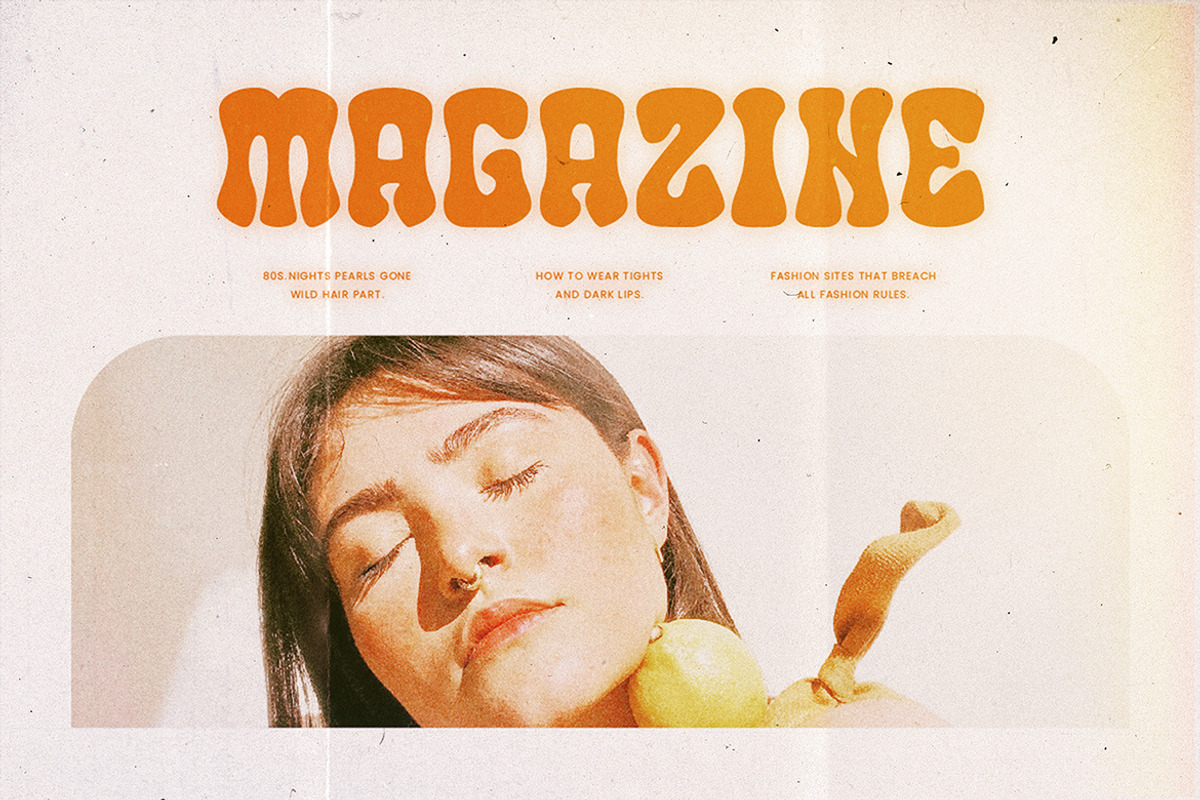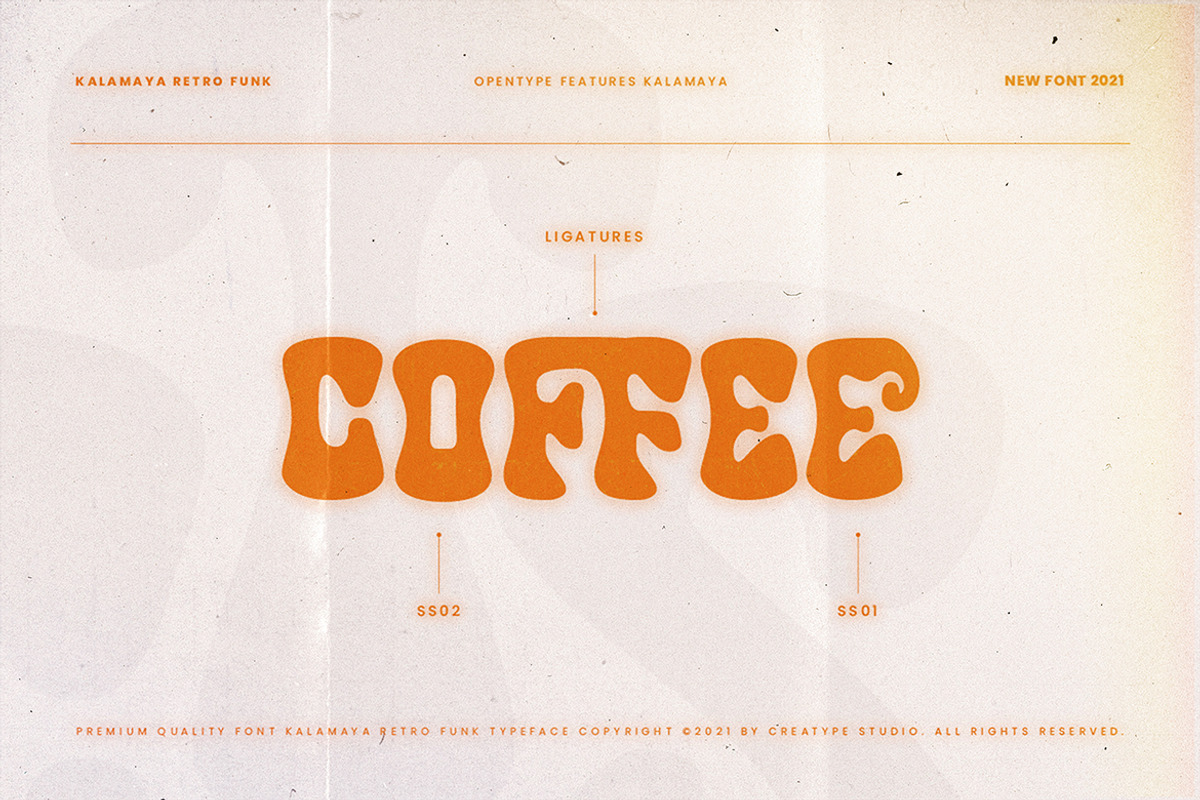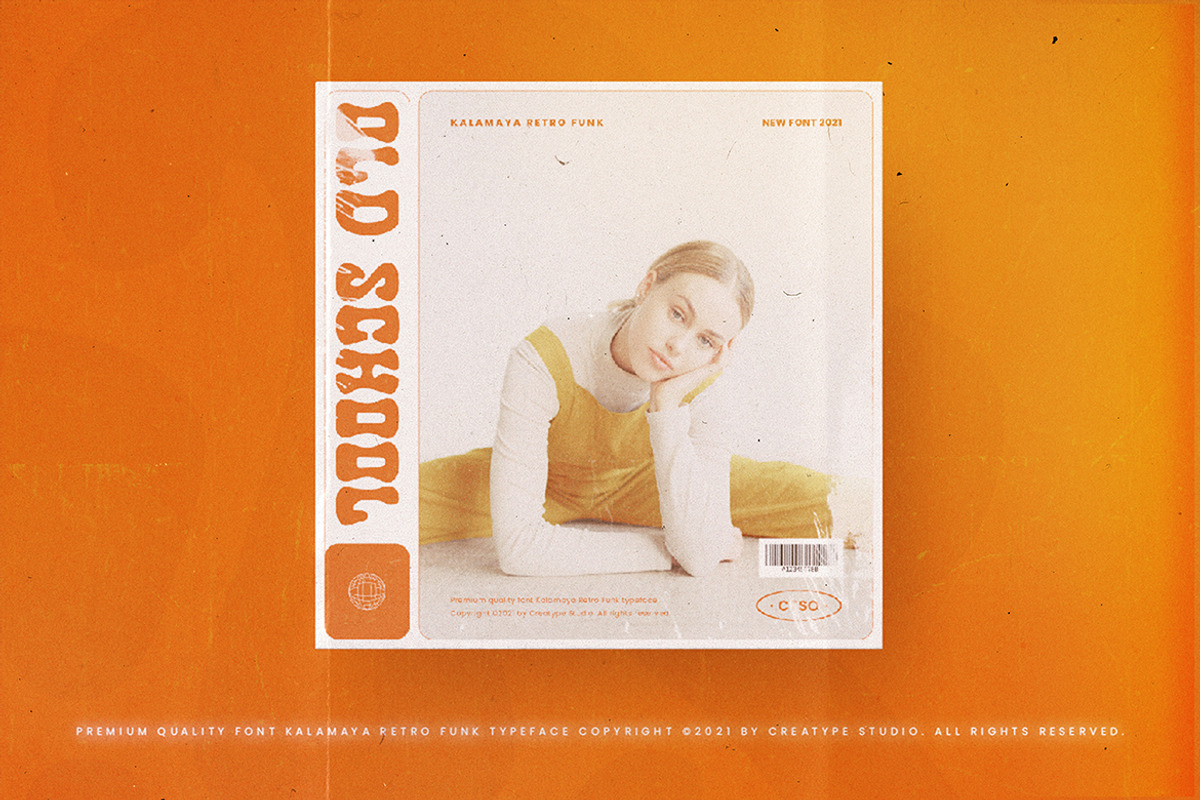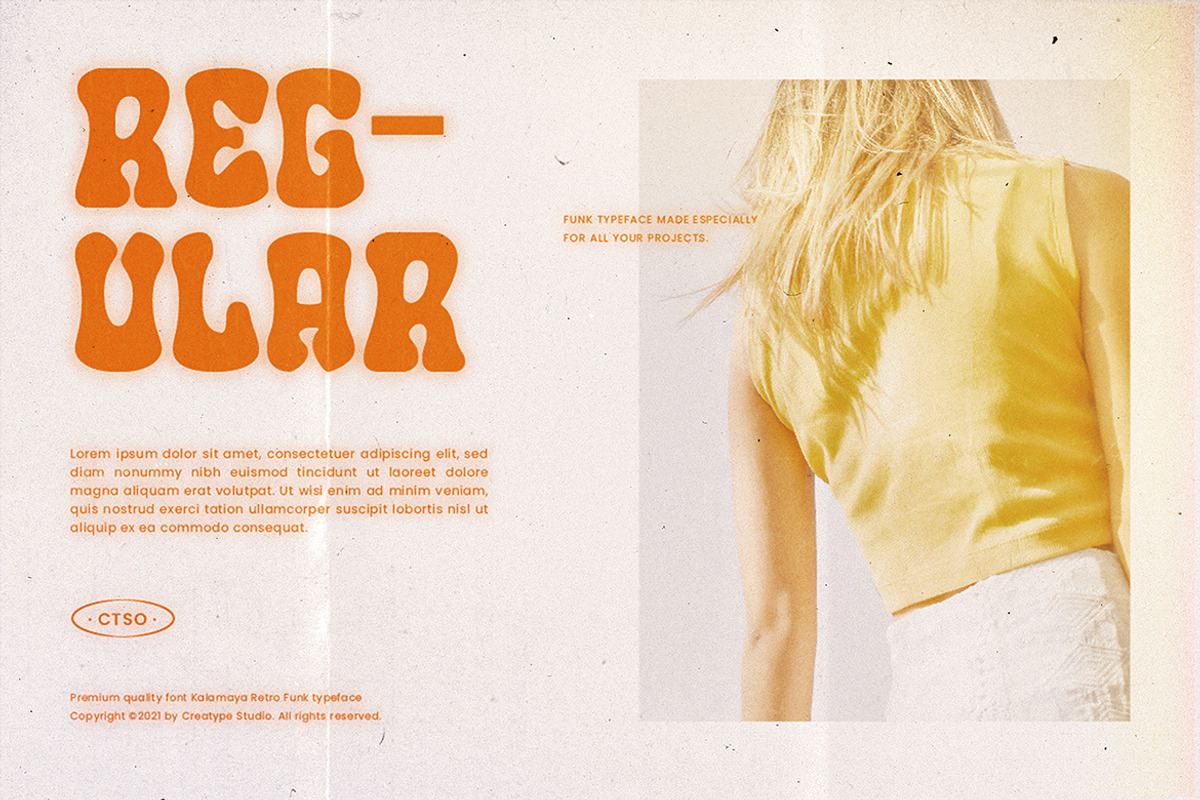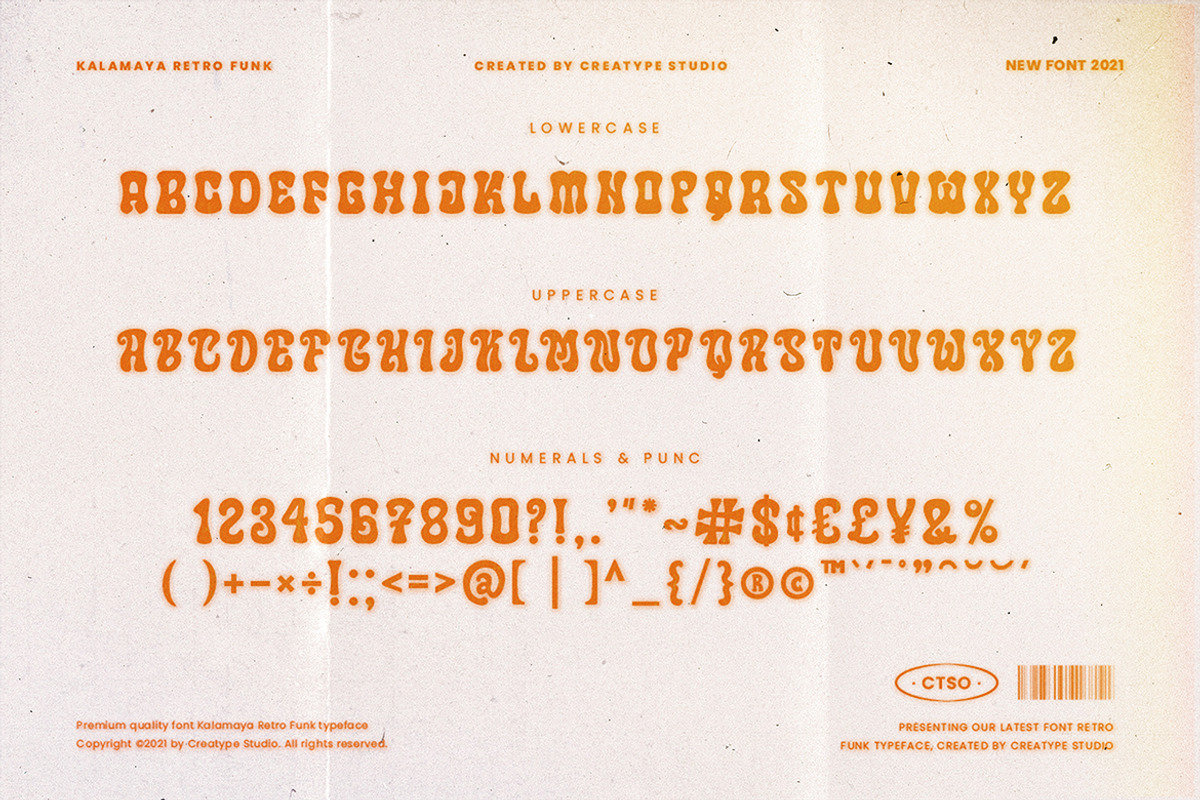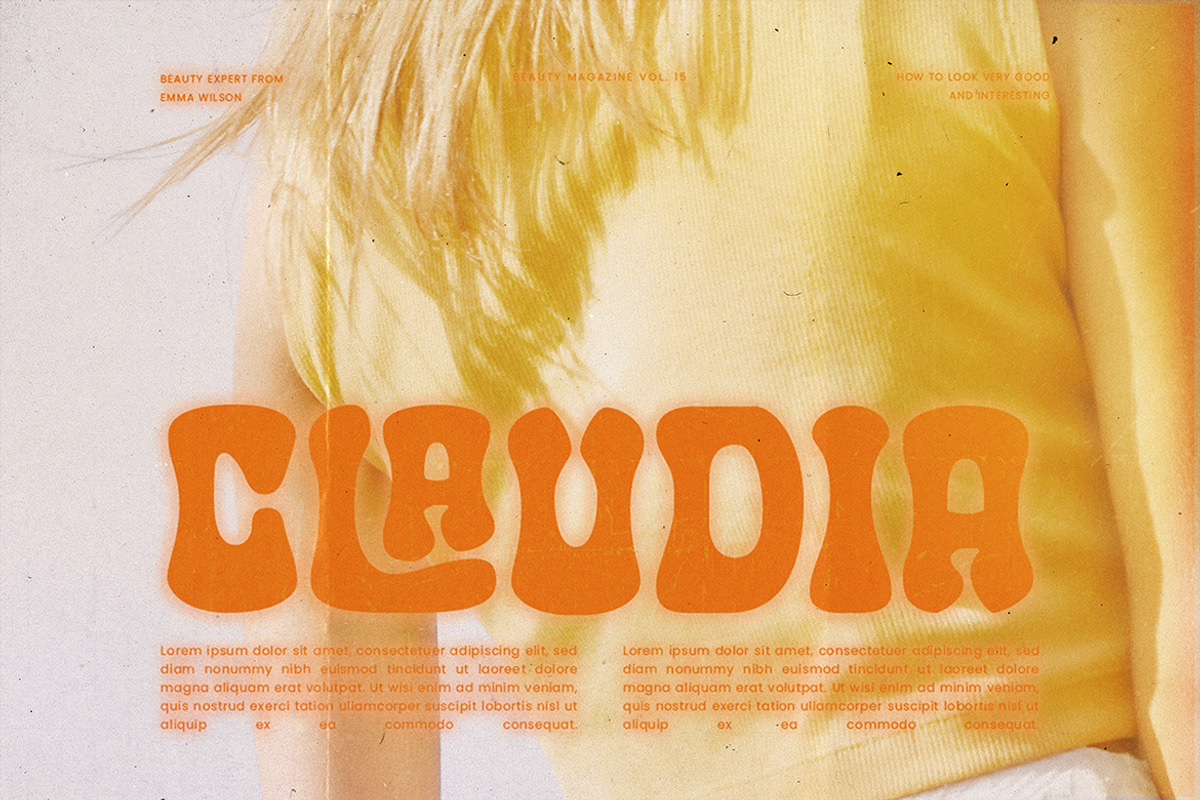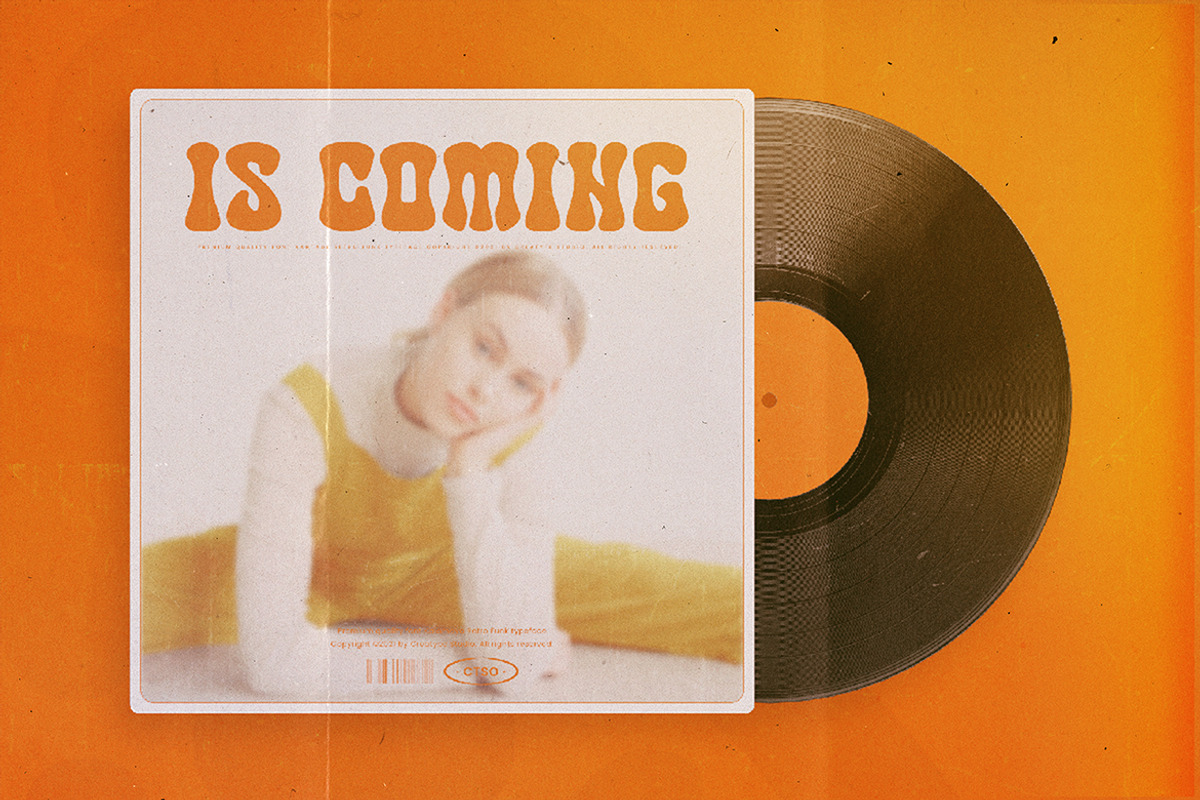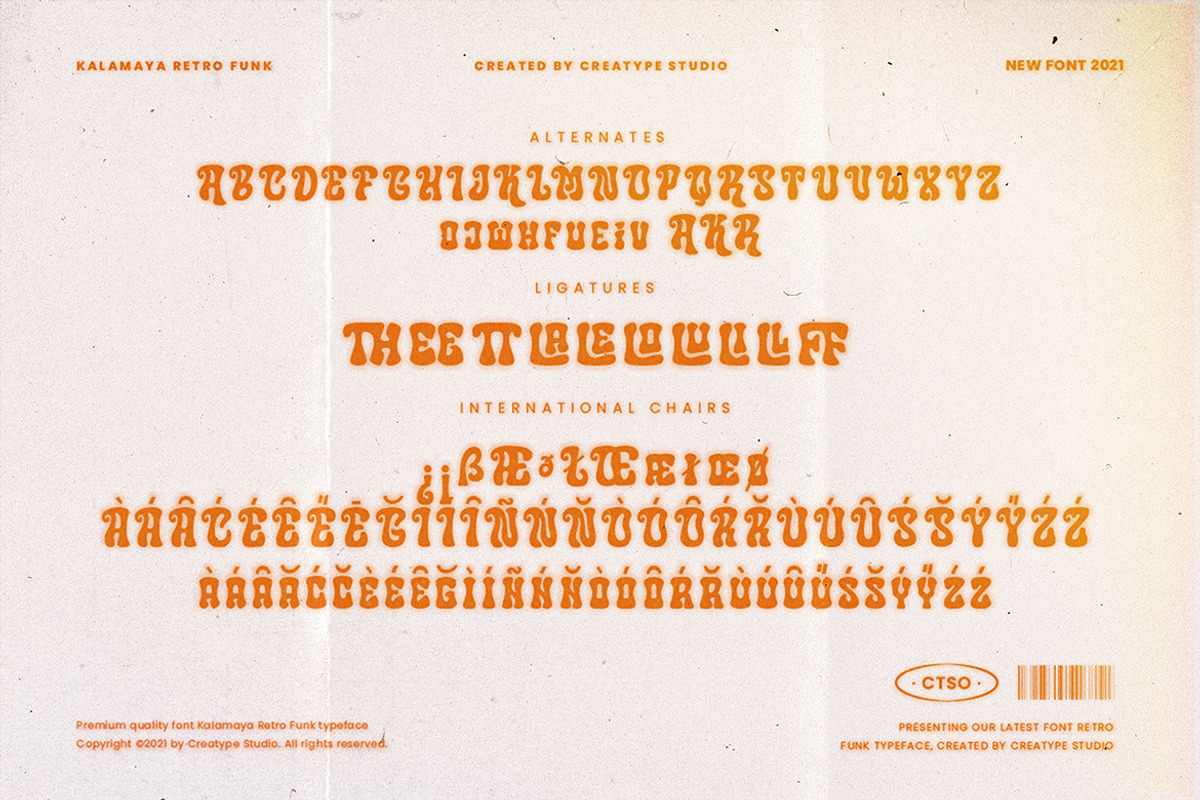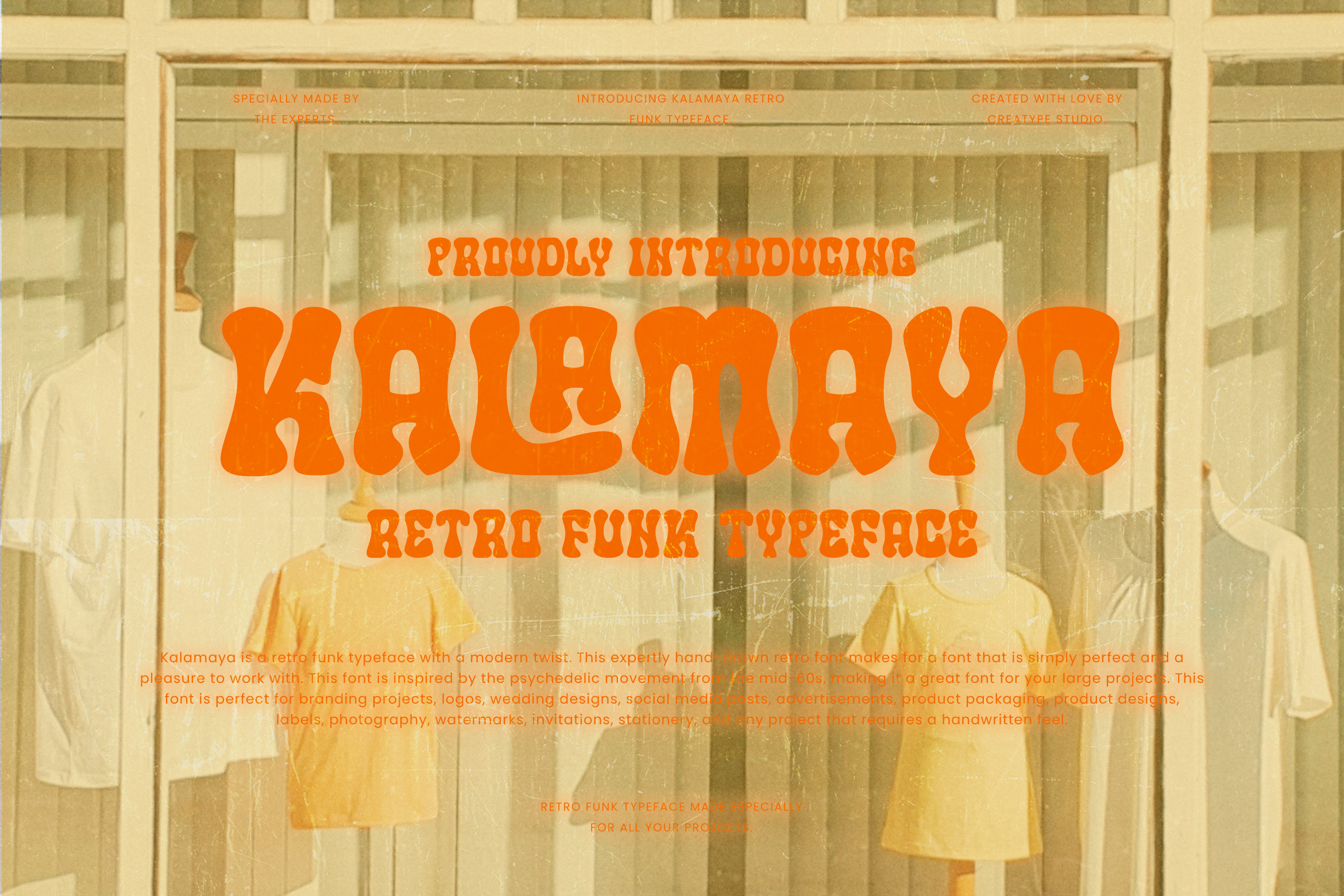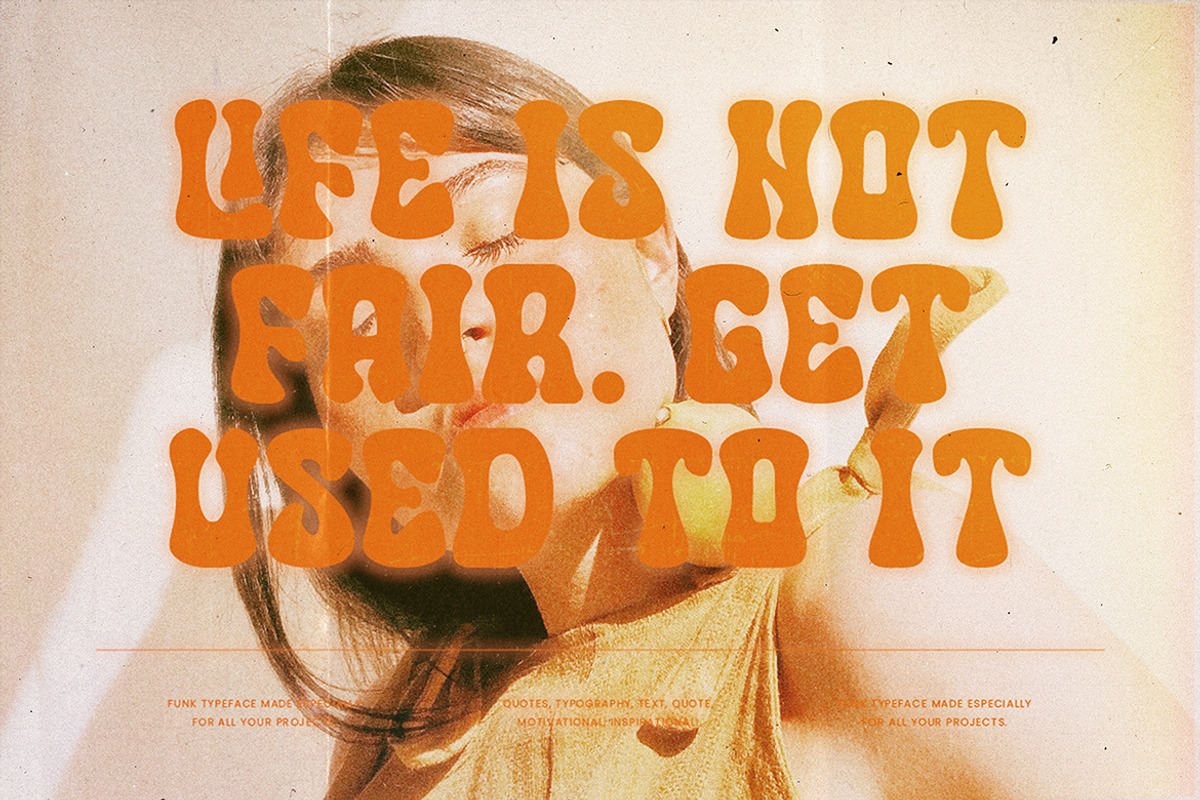
Kalamaya Retro Funk Business Font
Kalamaya is a retro funk typeface with a modern twist. This expertly hand-drawn retro font makes for a font that is simply perfect and a pleasure to work with. This font is inspired by the psychedelic movement from the mid-60s, making it a great font for your large projects.
Kalamaya is perfect for branding projects, logo, wedding designs, social media posts, advertisements, product packaging, product designs, label, photography, watermark, invitation, stationery and any projects that need handwriting taste.
- Ligature & Alternate